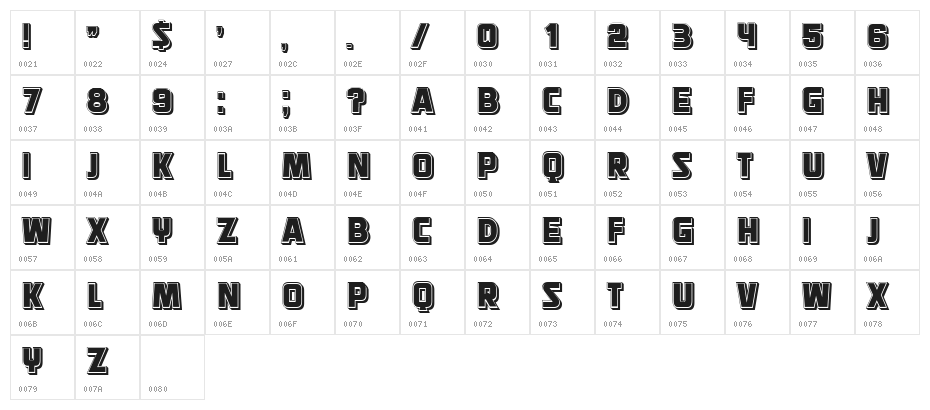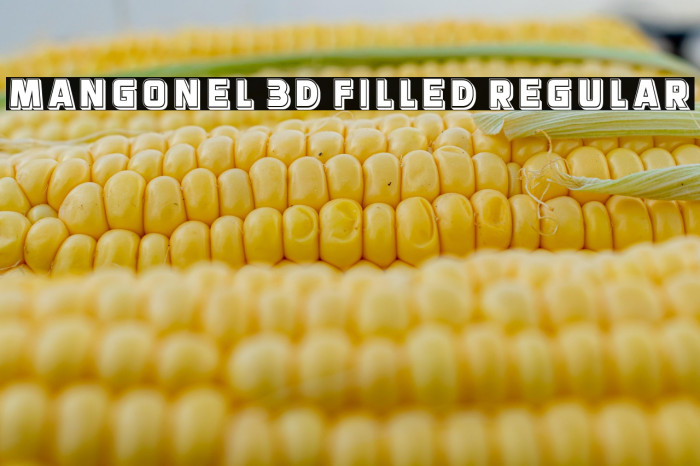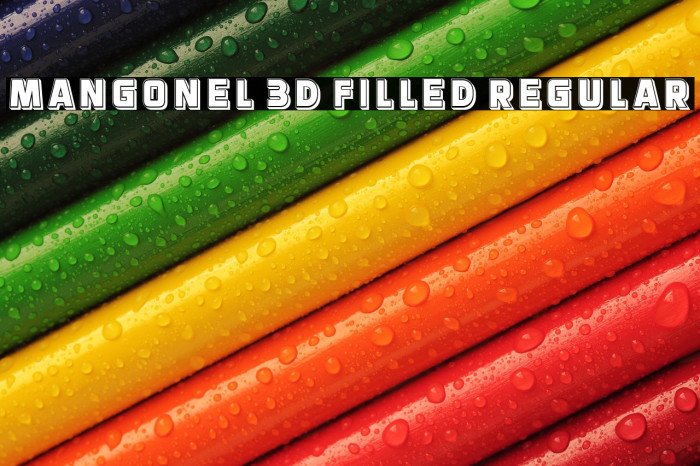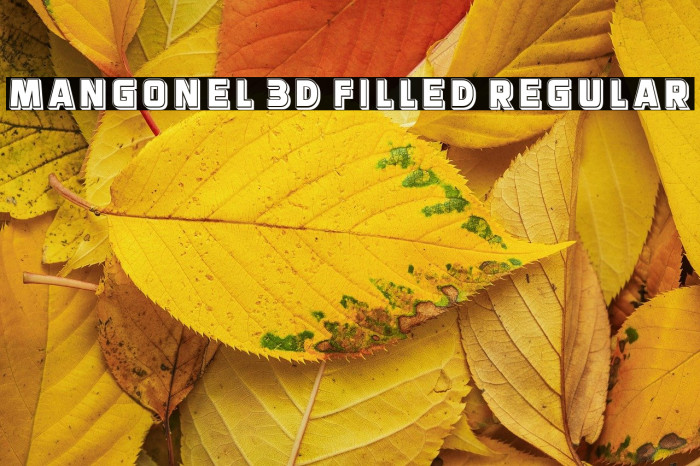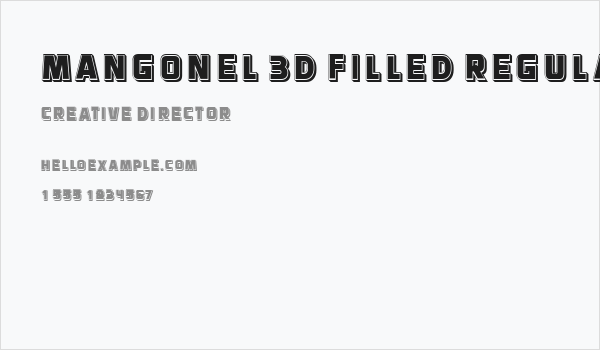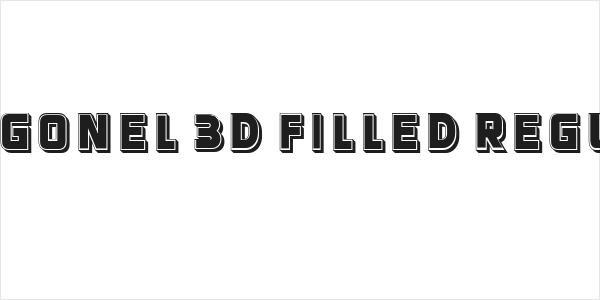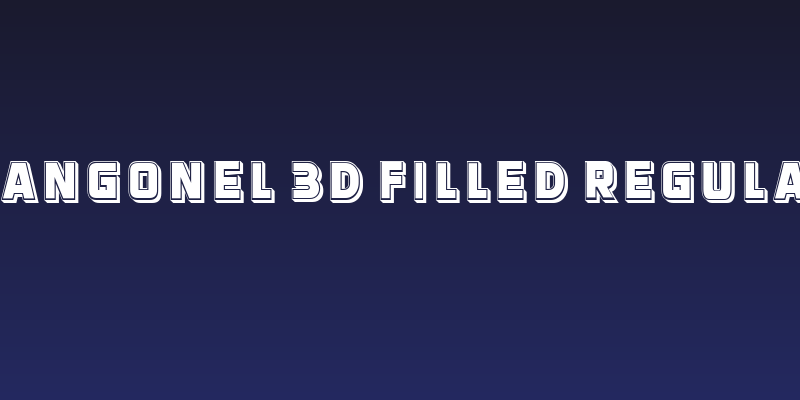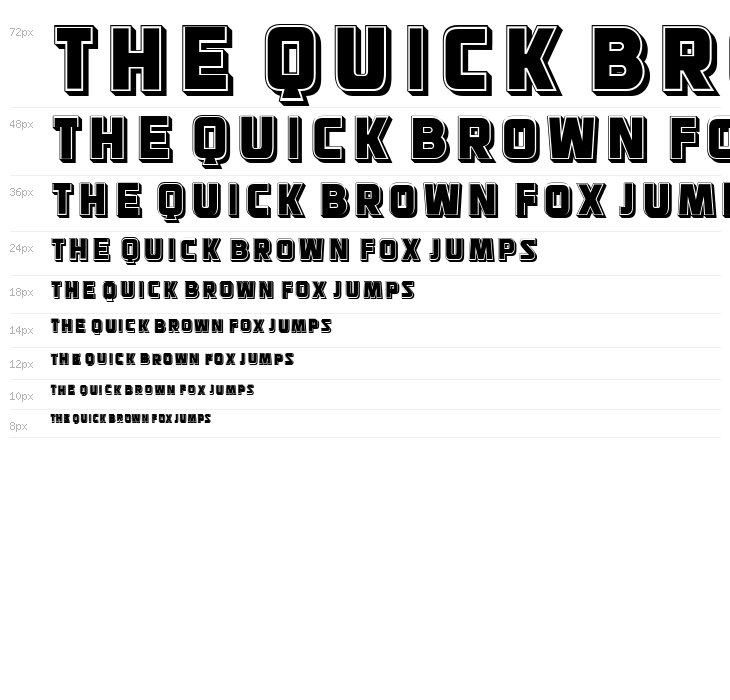
Mangonel 3D Filled Regular Font
Mangonel 3D Filled Regular Description
This font features a bold, three-dimensional appearance with a filled center and a distinct shadow effect, creating a strong visual impact. The characters are uppercase and have a geometric, blocky style that emphasizes their boldness. The design is consistent across all letters and numbers, maintaining a uniform look that enhances readability while adding depth. The font's unique 3D effect makes it stand out, making it suitable for eye-catching designs. The spacing between characters is normal, ensuring clarity and legibility even with the intricate shadow detailing.